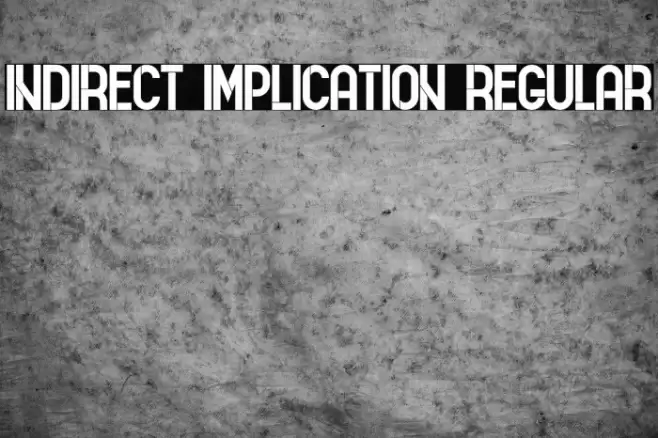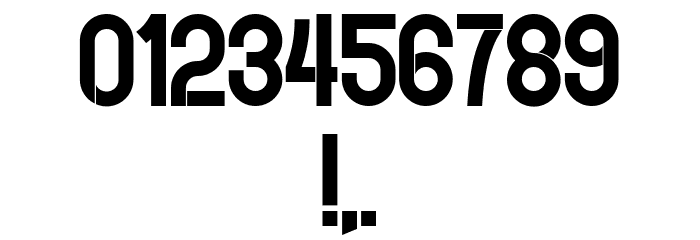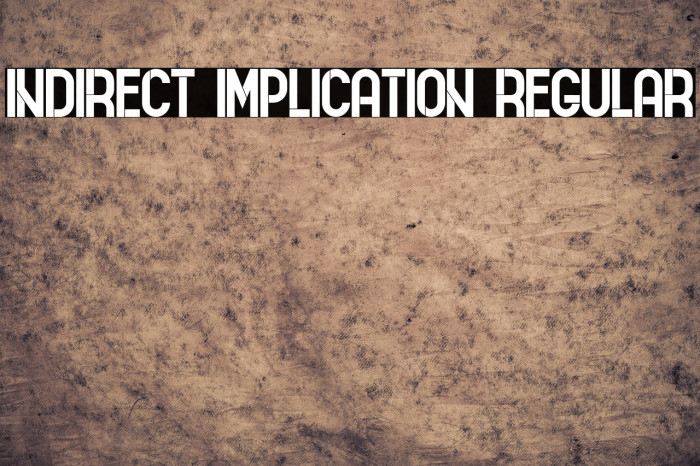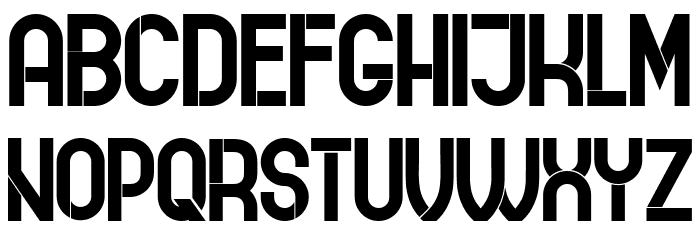
Indirect Implication Regular Font
Indirect Implication Regular Description
This font exhibits a bold, geometric style with a modern and futuristic appeal. The characters are constructed with clean, straight lines and sharp angles, giving them a distinct and striking appearance. The uppercase letters are particularly prominent, featuring a uniform height and width that contribute to a cohesive and structured look. The numerals and special characters maintain the same geometric consistency, ensuring a harmonious overall design. The font's unique style makes it suitable for projects that require a contemporary and eye-catching typeface.
A bold, geometric font with a modern, futuristic style from Uncategorized fonts.
- Font: Indirect Implication Regular
- Proposed Projects: Ideal for branding, headlines, posters, and digital media where a modern and impactful look is desired.
- Overall Style: Modern, Futuristic